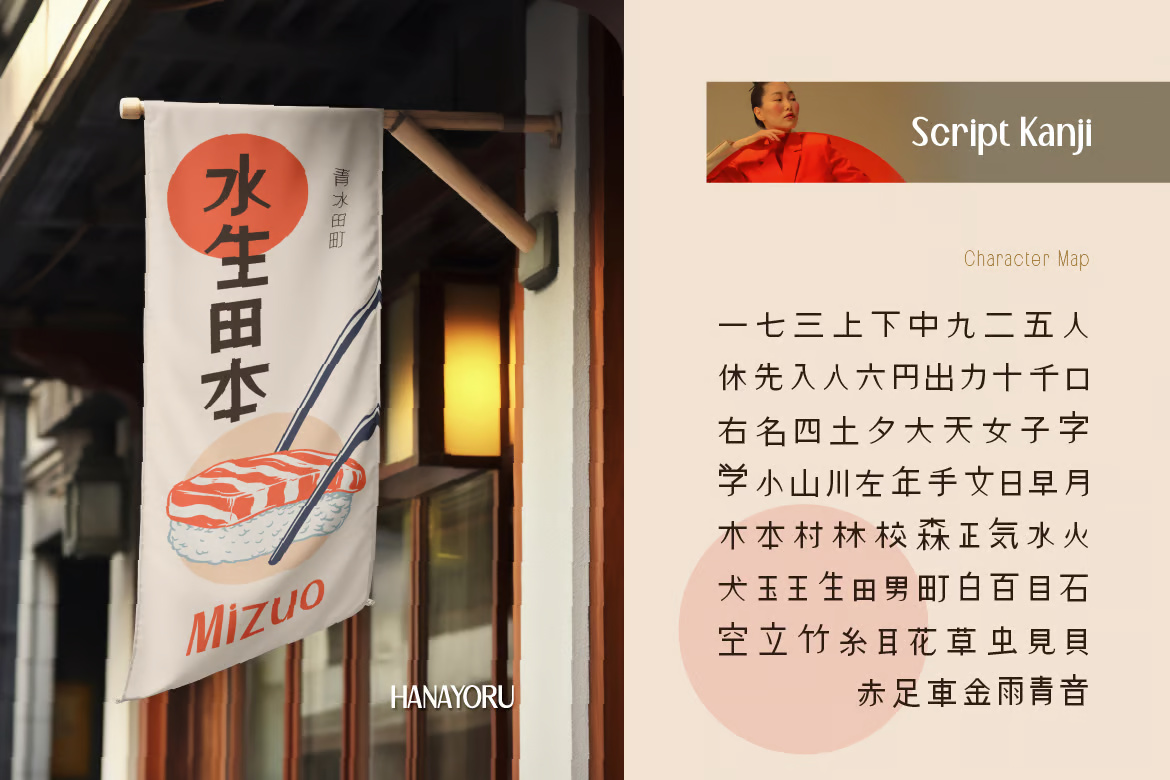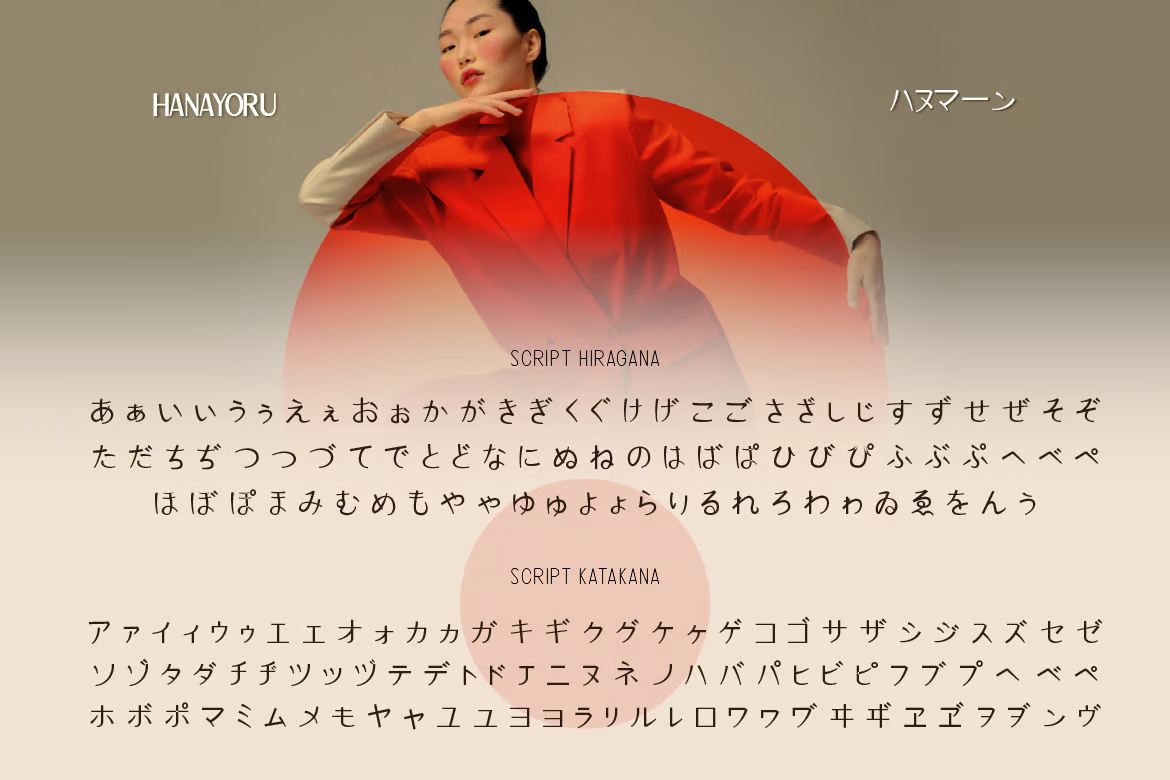
Hanayoru
Introducing Hanayoru, a modern and elegant Japanese font with Latin characters. This font includes Hiragana, Katakana, and Kanji, along with six weight variations, from Thin to Bold. Thanks to its clean and well-structured design, Hanayoru remains highly readable across all styles.
With a perfect blend of Latin and Japanese characters, Hanayoru is incredibly versatile for any design project that requires both languages. It strikes the ideal balance between traditional aesthetics and modern appeal. Perfect for branding, logos, editorials, packaging, or Japanese-themed posters.
Hanayoru Sans-Serif Font